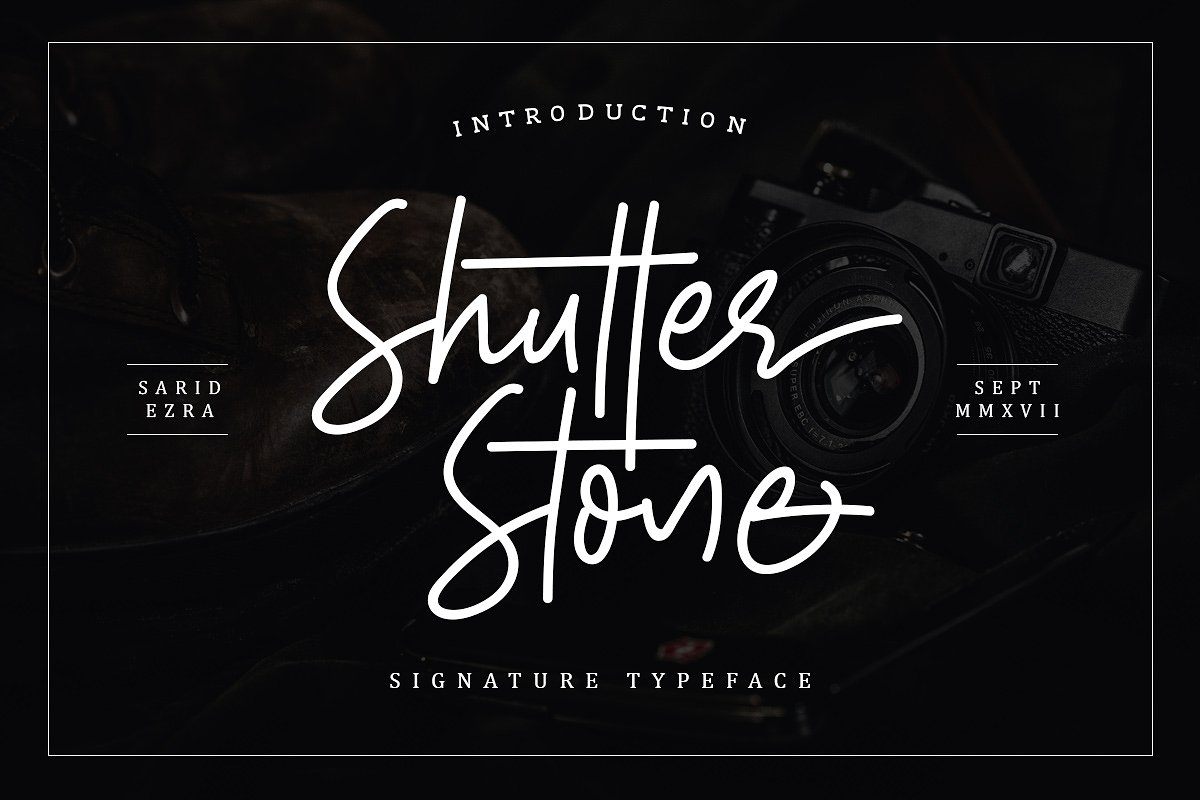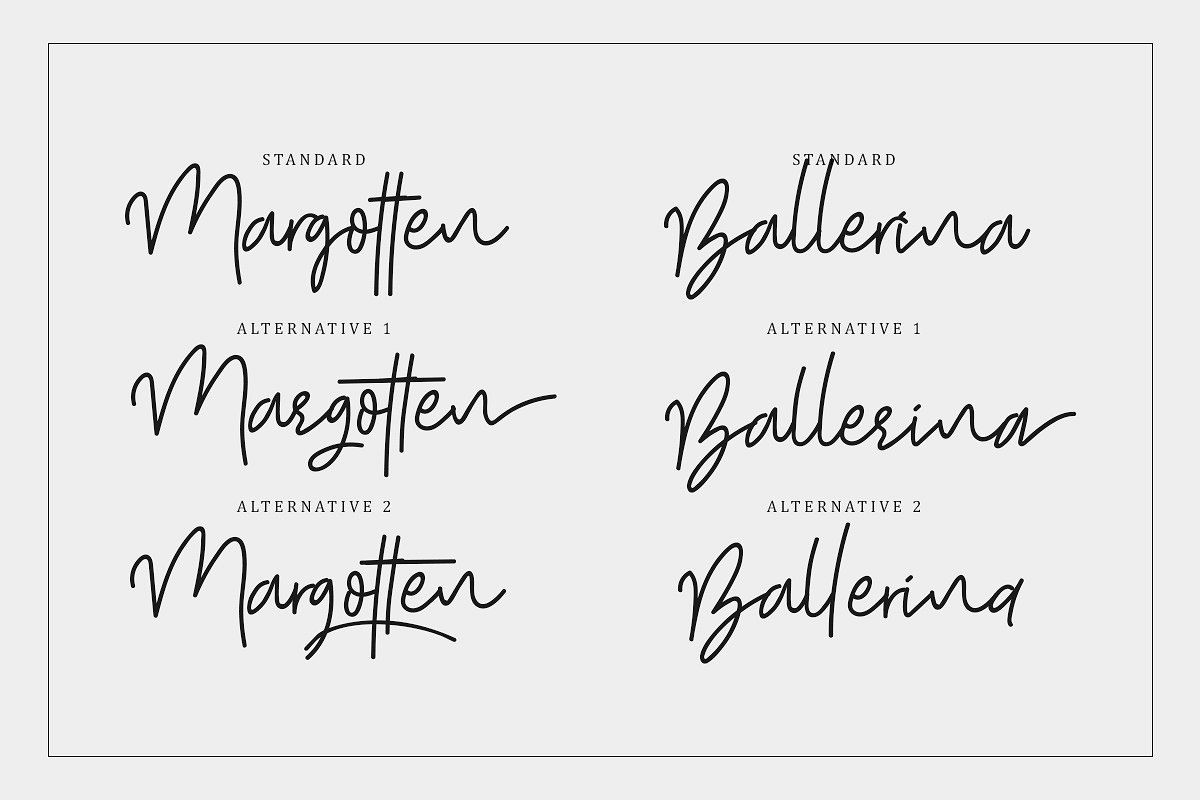
Shutter Stone – Signature Script
Shutter Stone is handwritten font that contain stylistic alternate, swash, etc to create your own customized signature. This font is also support multi language. This font available in OTF and TTF. Also Support PUA.